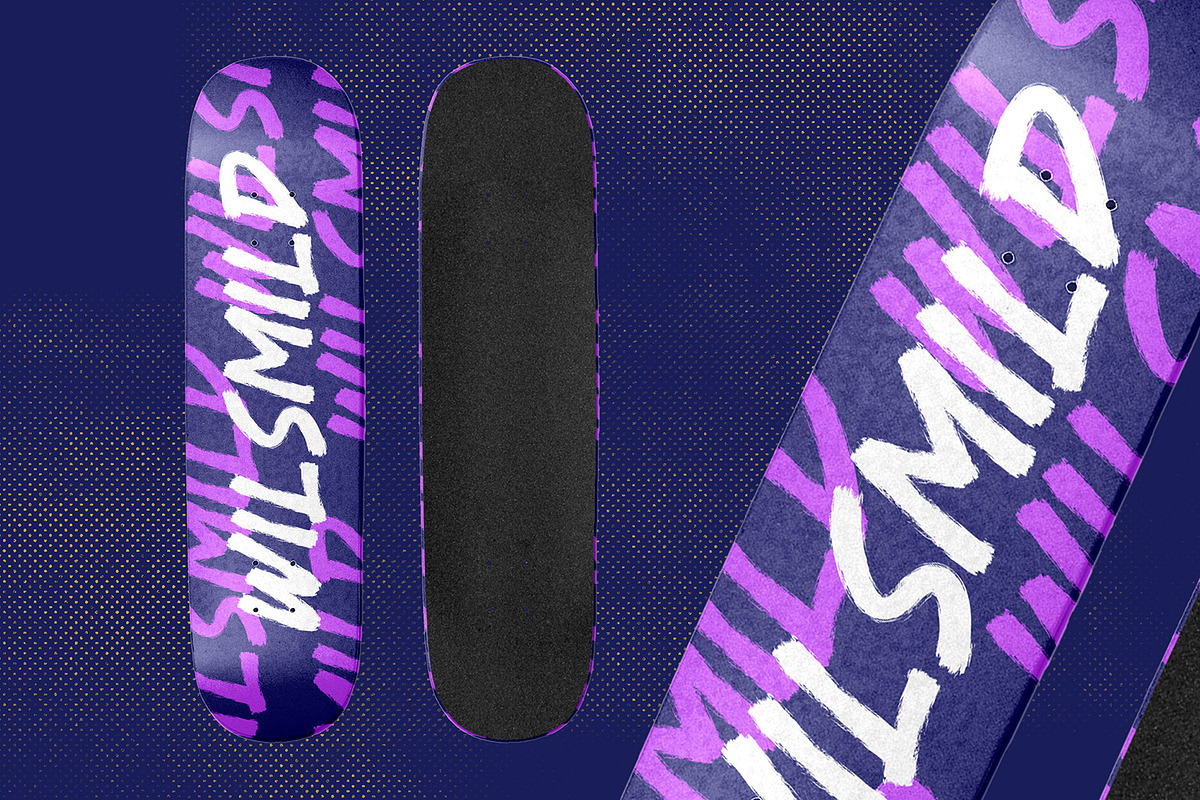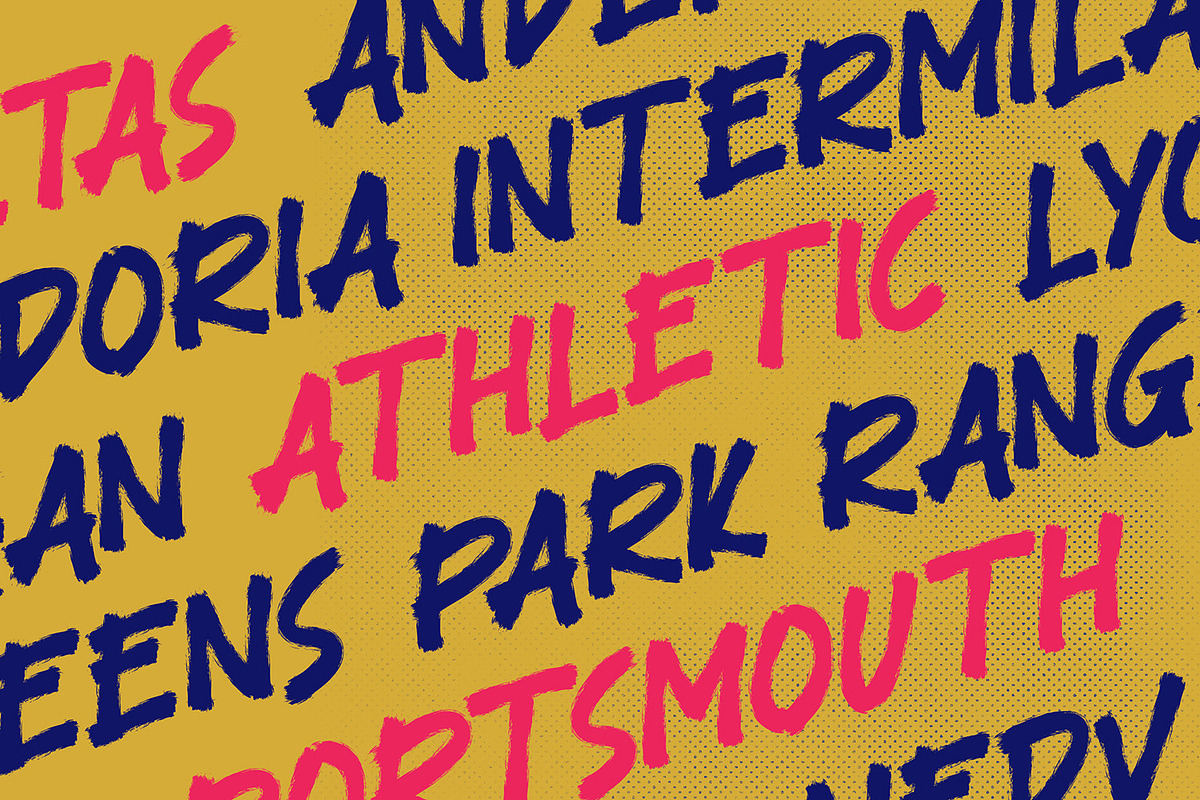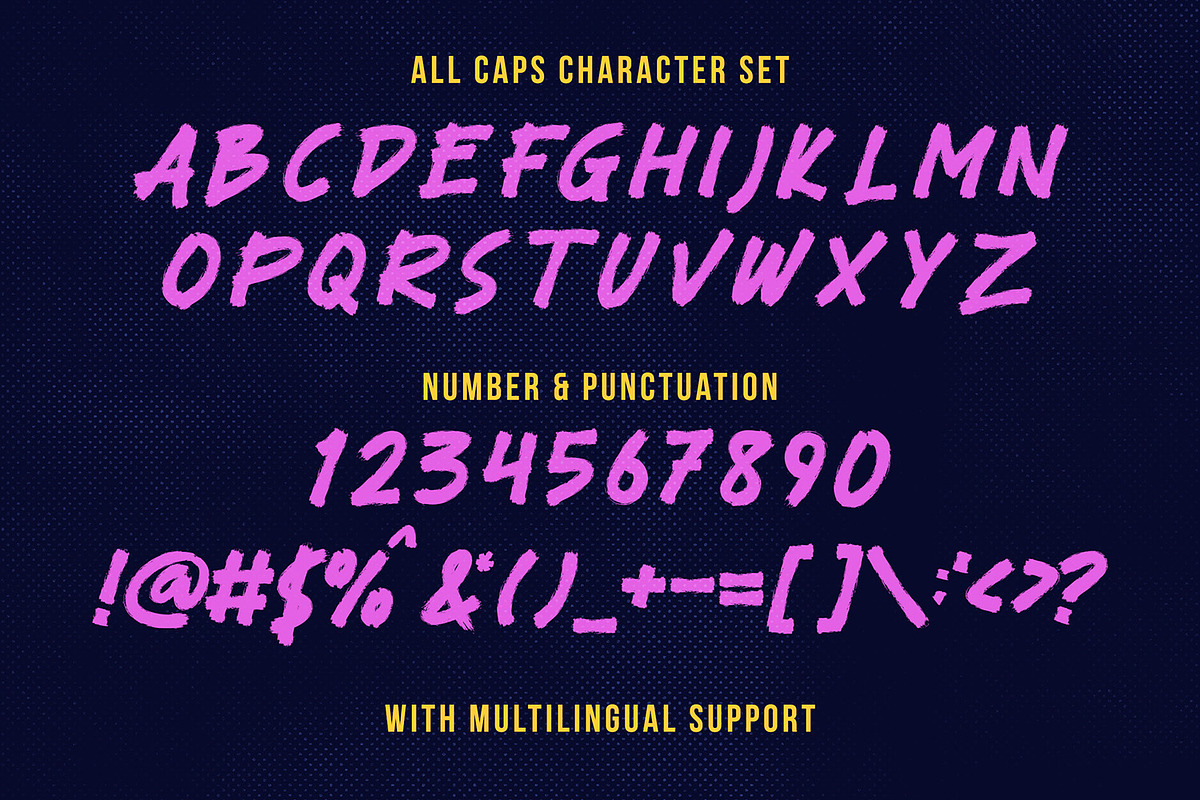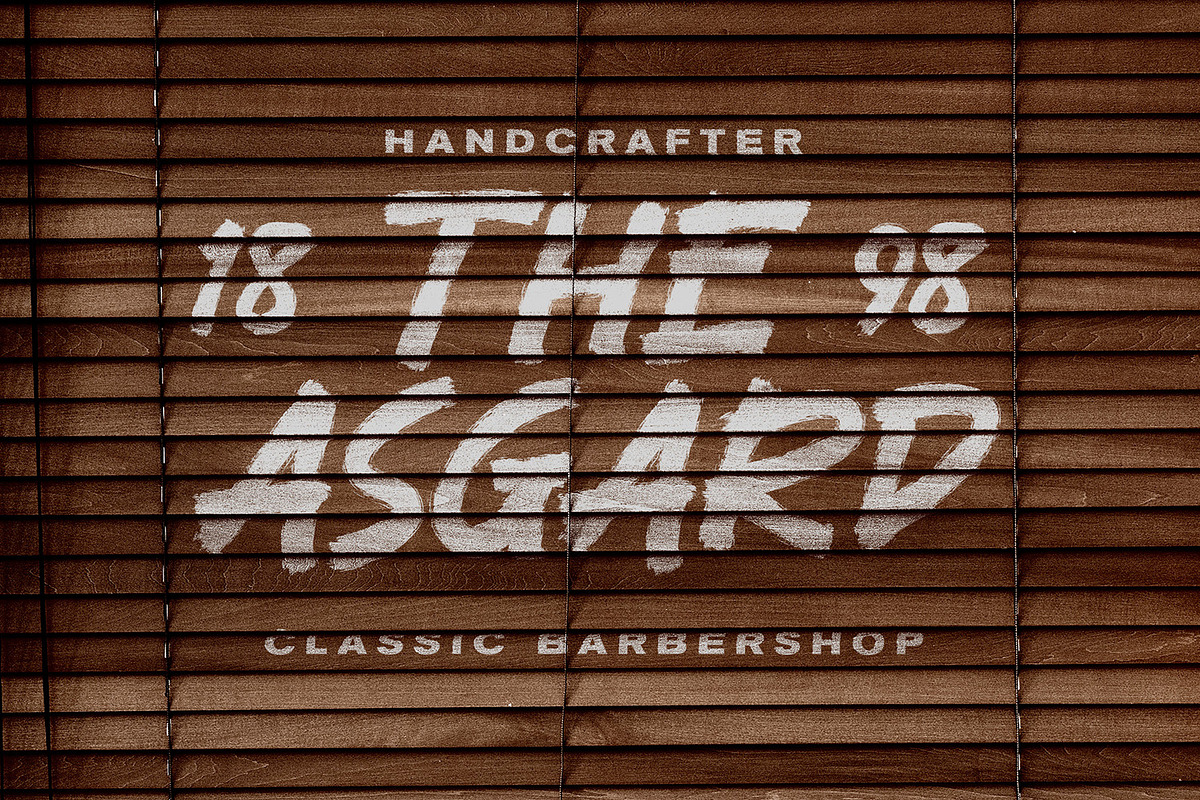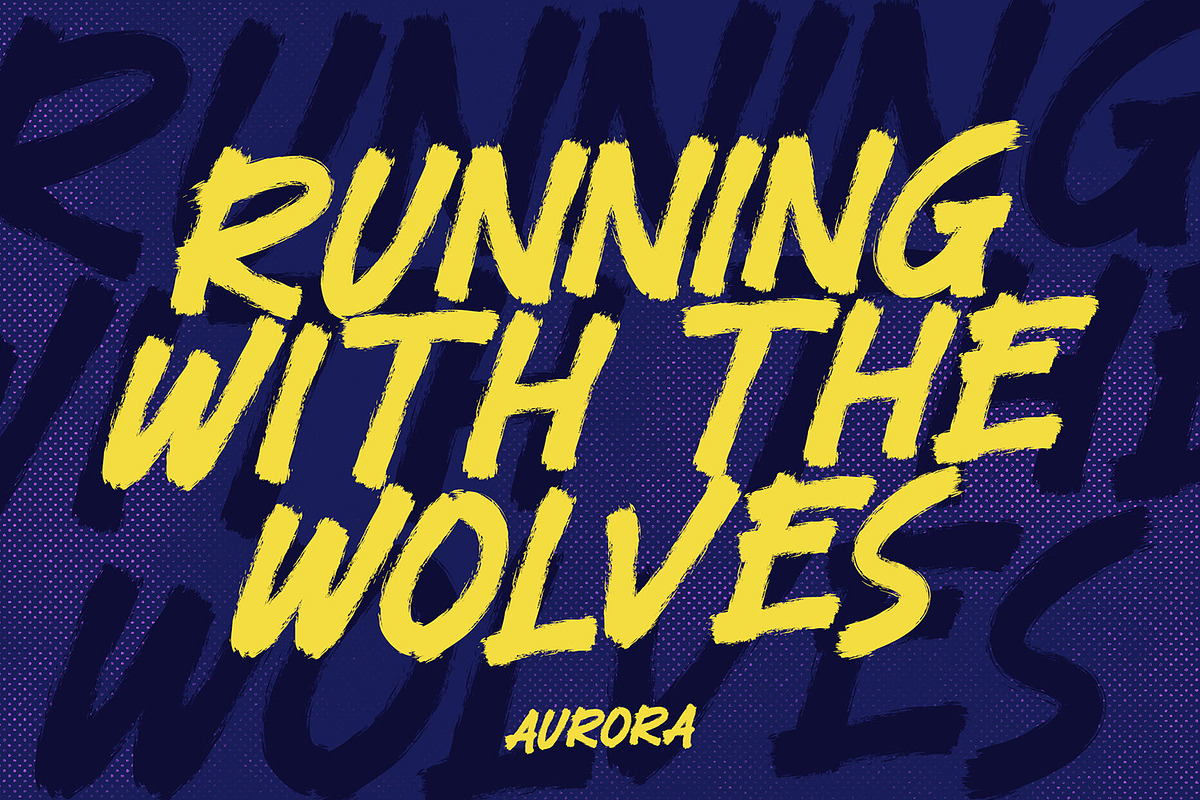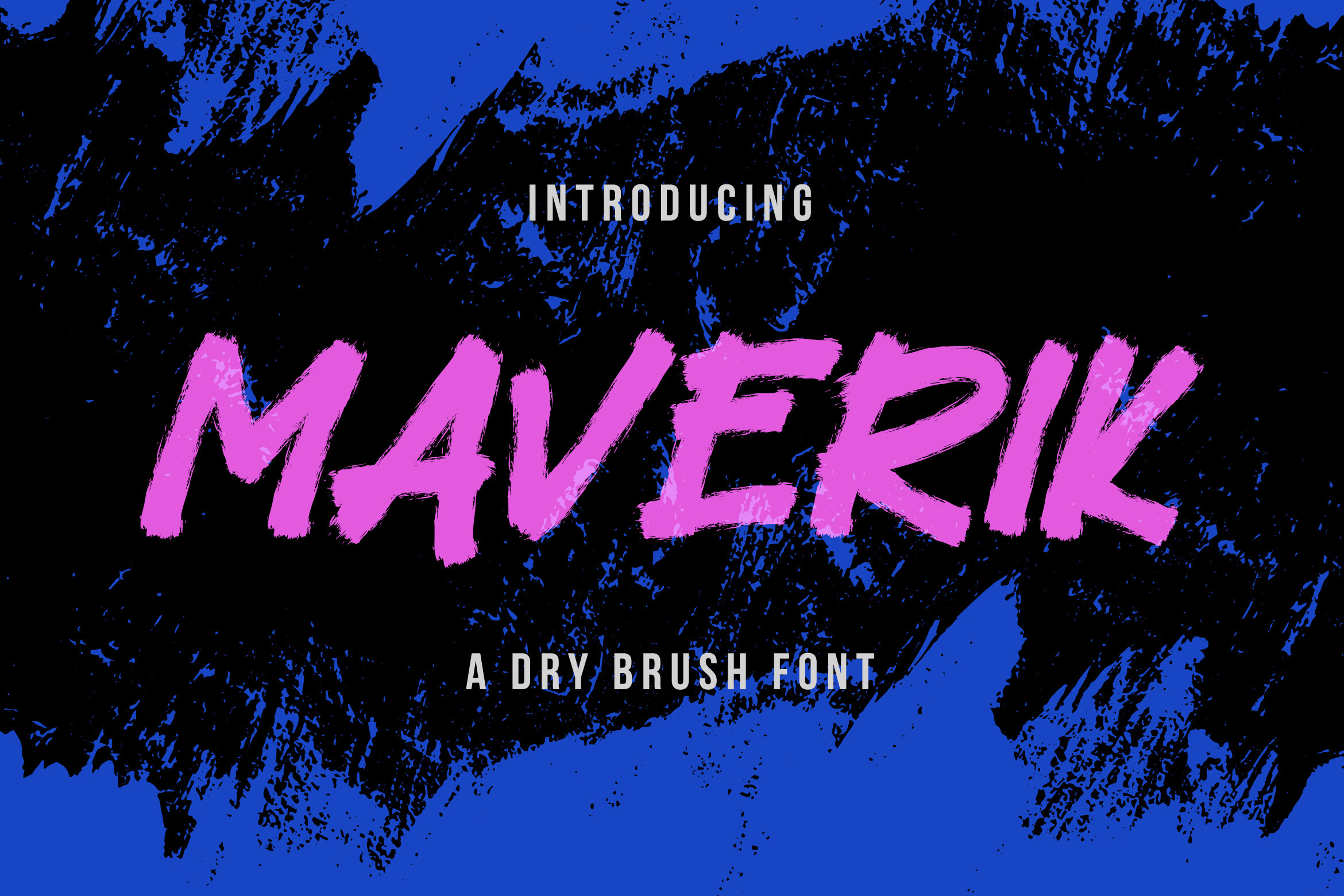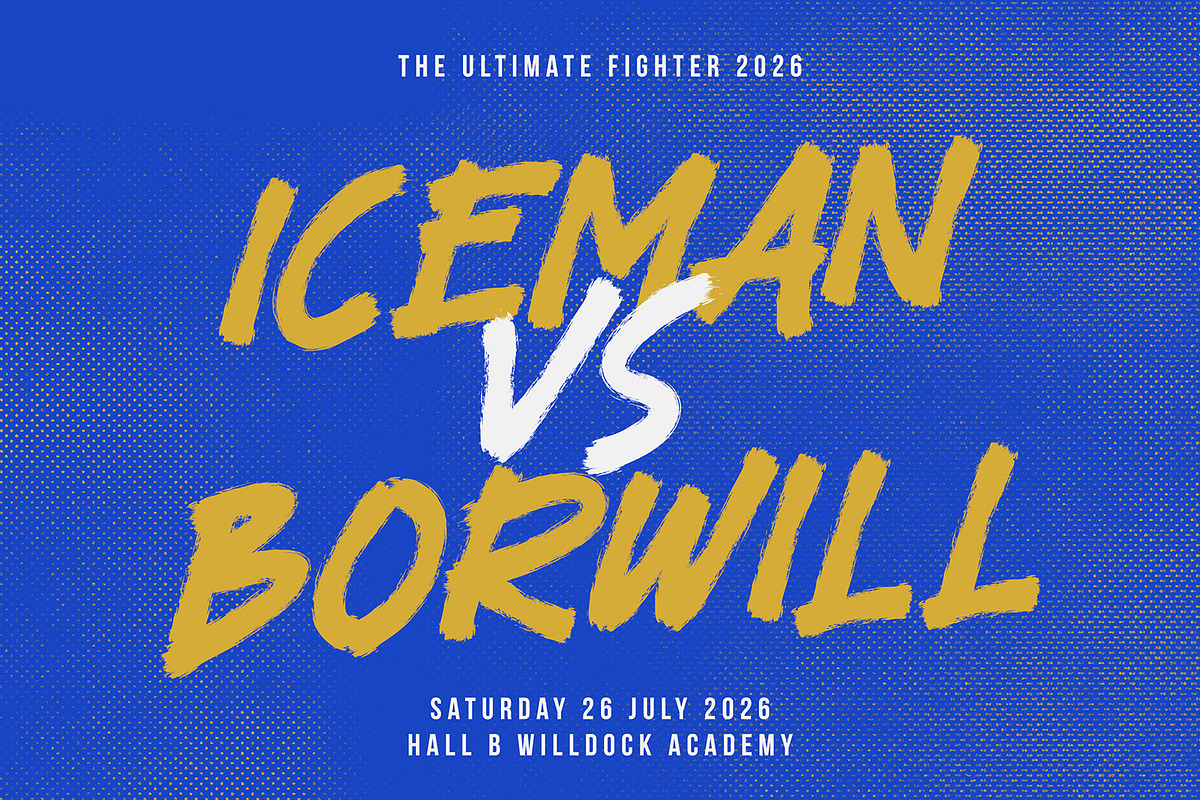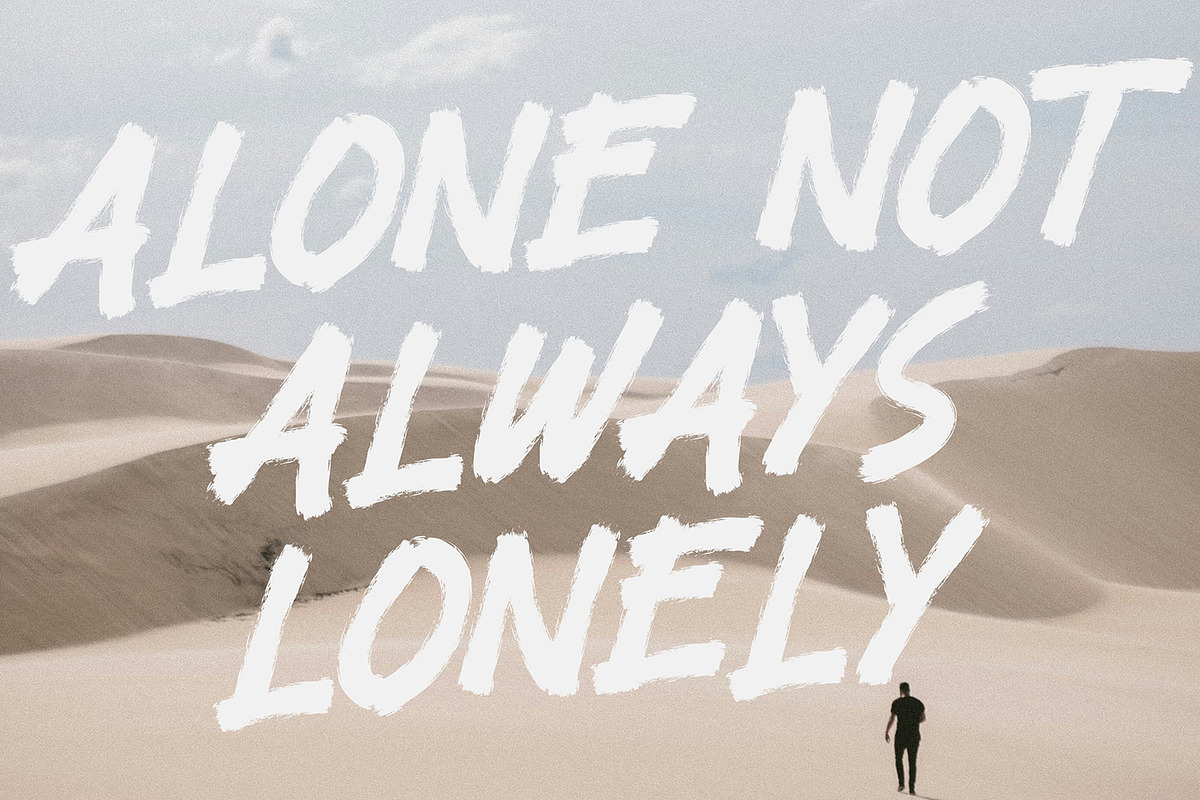
Maverik - Dry Brush Font
Introducing Maverik - Dry Brush Font
Maverik is a dry brush font that captures the raw energy and expressive texture of hand-painted lettering. Its rough strokes and natural brush details create a bold and dynamic look that adds strong character to any design.
This font is perfect for logos, posters, branding, headlines, packaging, social media graphics, and creative typography projects. Maverik brings an artistic and expressive feel that makes designs stand out with a handcrafted appearance.
With its authentic brush style and powerful visual impact, Maverik helps create striking compositions that feel bold, creative, and full of personality.